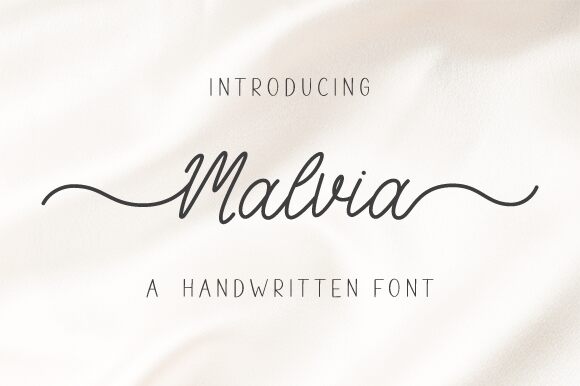
Malvia
Malvia is a gorgeous handwritten font designed by Graphix Line Studio. Its light weight and semi-condensed width make it perfect for a variety of projects, from wedding invitations to product packaging. The delicate curves and flourishes of Malvia add a touch of elegance to any design, while still maintaining a playful and modern feel. Use this semi-bold typeface for branding projects, social media graphics, or even children's book illustrations. With its unique style and versatility, Malvia is sure to become a favorite among designers looking for something special.